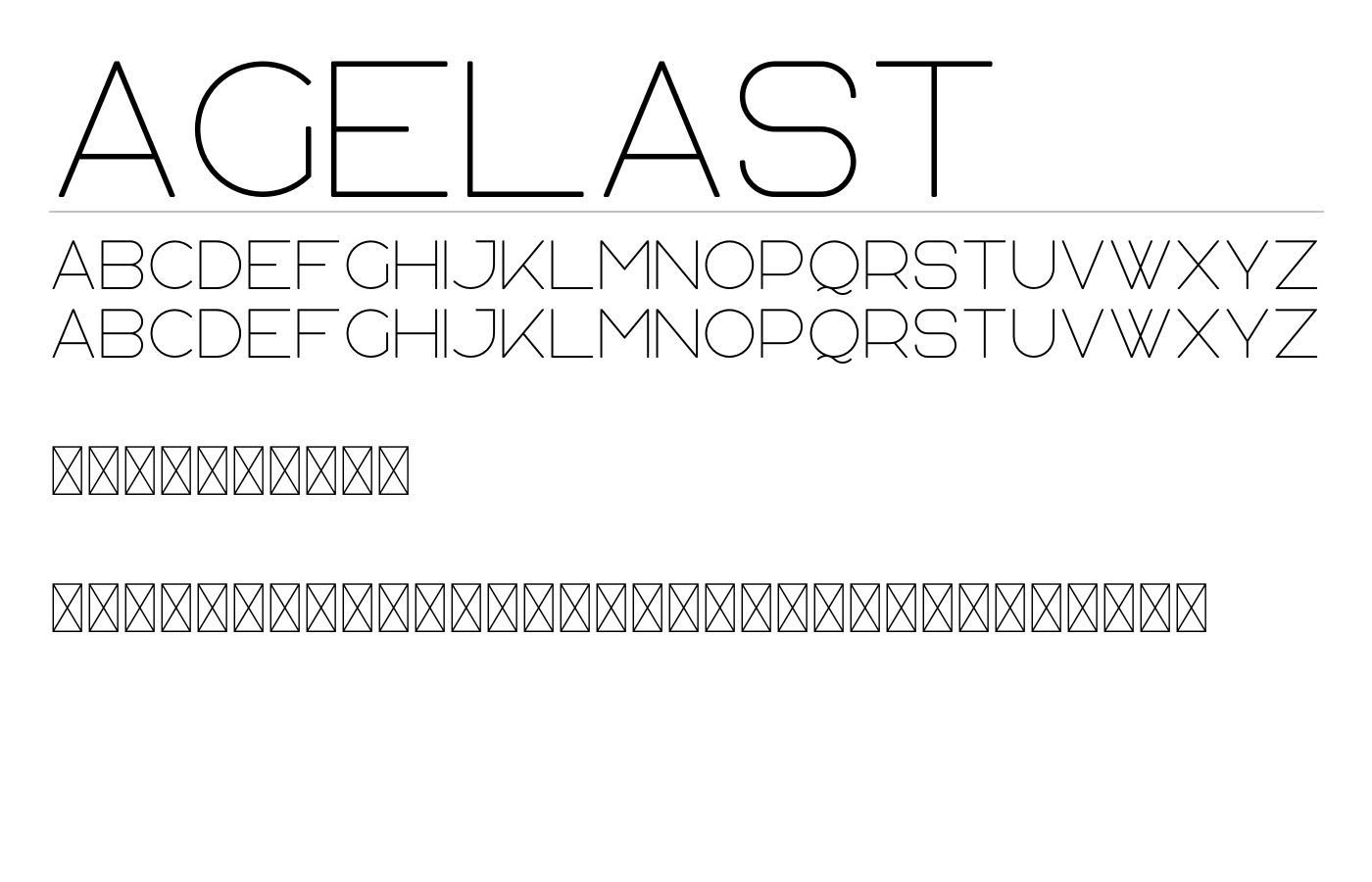
Agelast is a sleek, modern sans serif font characterized by its ultra-thin, clean lines and geometric letterforms. It exudes a minimalist and elegant vibe, making it ideal for stylish branding, editorial headlines, and contemporary design projects where sophistication and clarity are key. This font works especially well in high-end fashion, luxury packaging, and any context that benefits from a refined, airy typographic presence.
Agelast Font
About Agelast Font